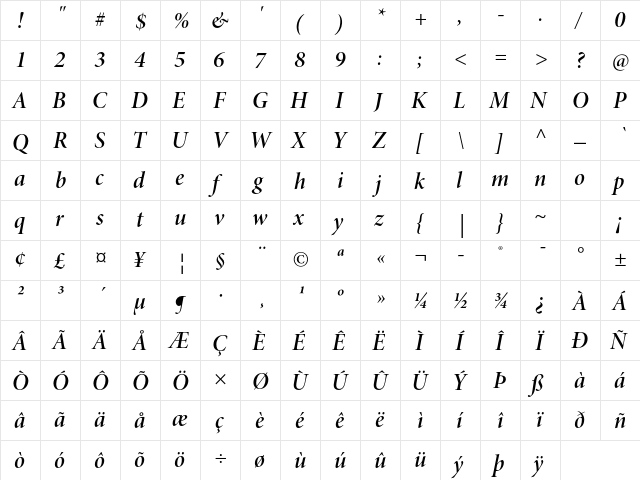
Minion Pro Semibold Italic Display Font Preview
Minion Pro Semibold Italic Display
Minion Pro Semibold Italic Display Font Details
| Style | Semibold Italic Display |
| Designer | Robert Slimbach |
Design Context for Minion Pro Typeface
Minion Pro is built around its visual character rather than neutral utility — its distinctive forms are designed to make an impression at display sizes. The dynamic lean of this cut emphasises speed and emphasis in any layout. Its bold stroke weight gives it real presence on the page.